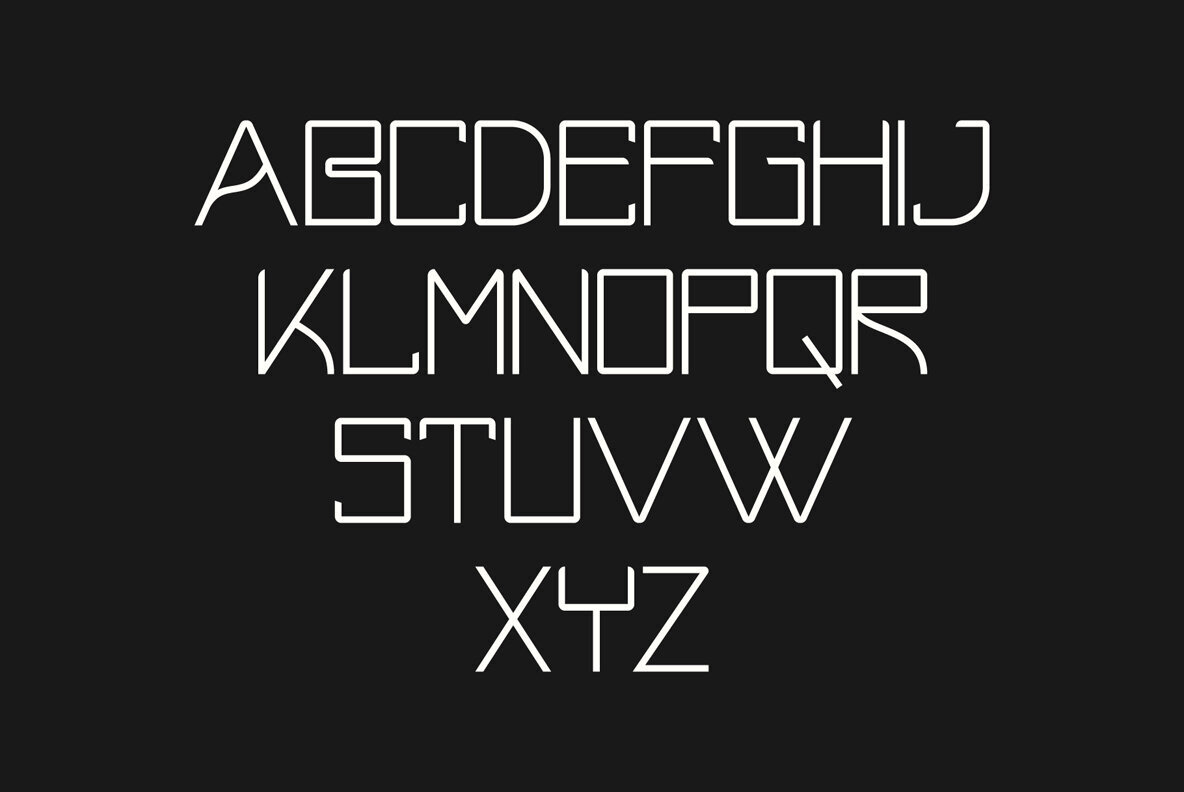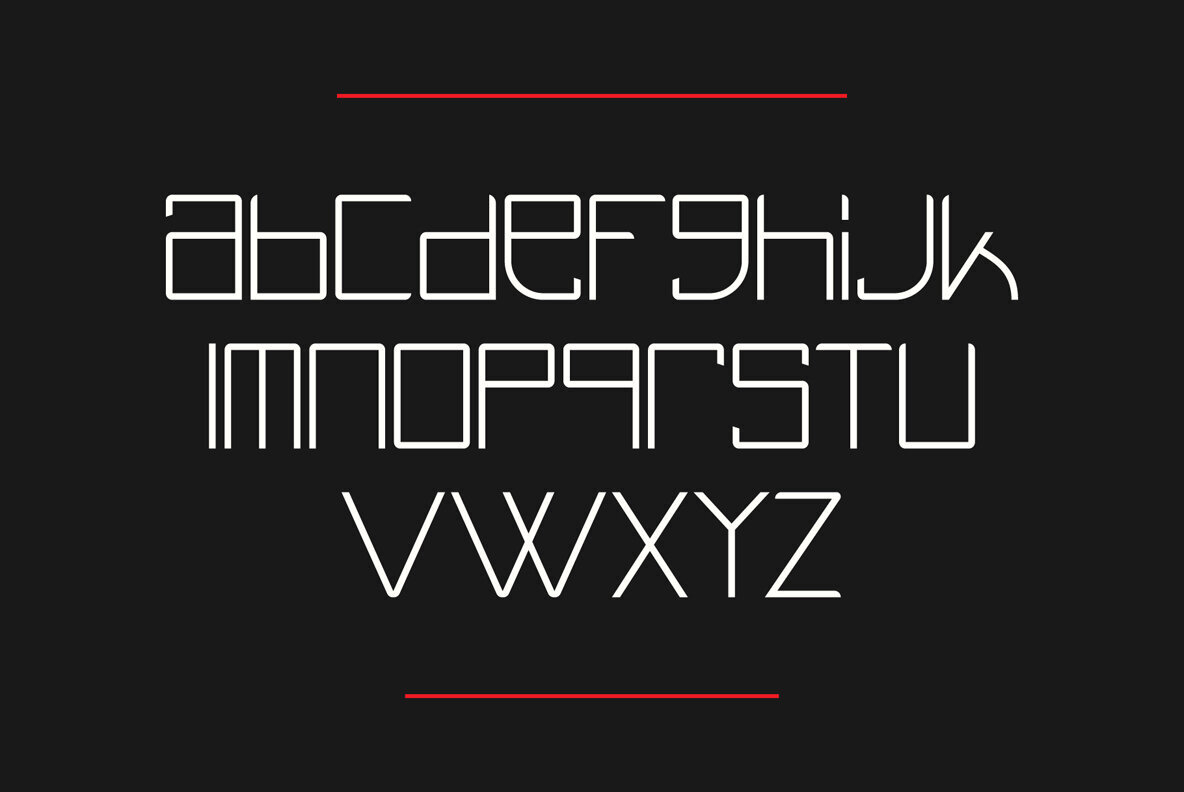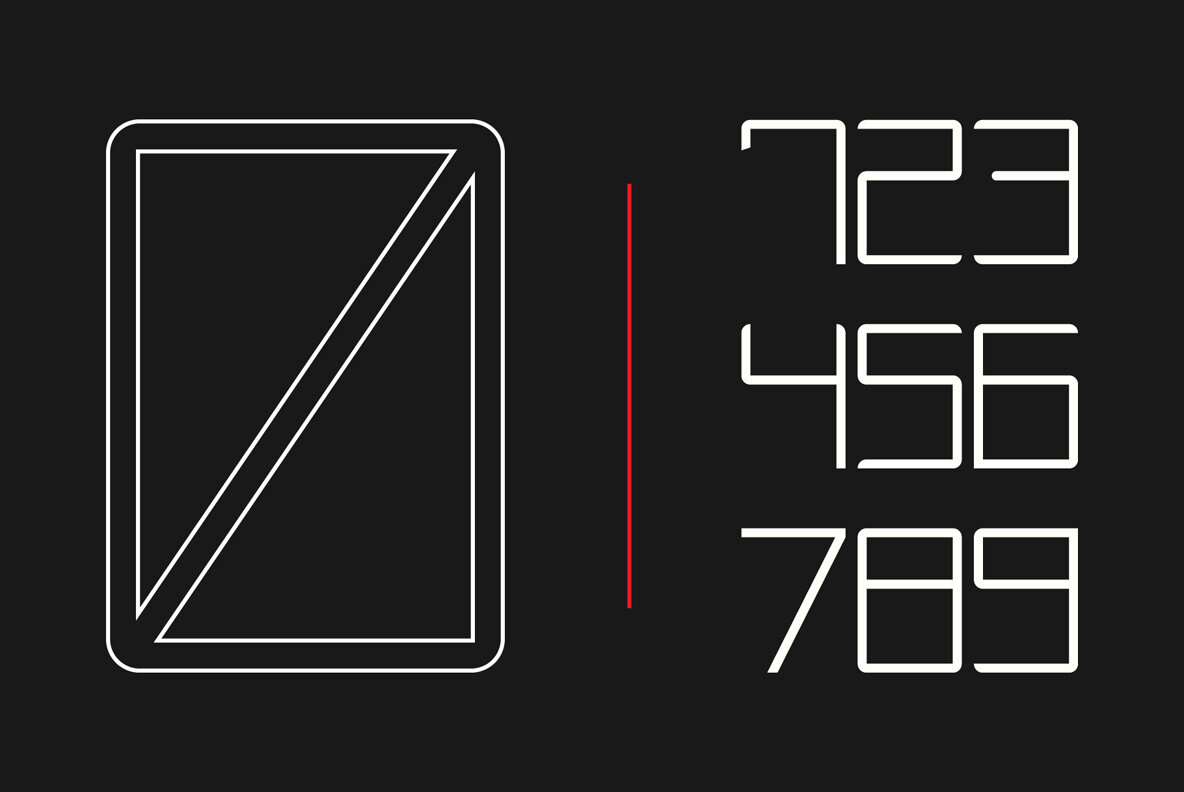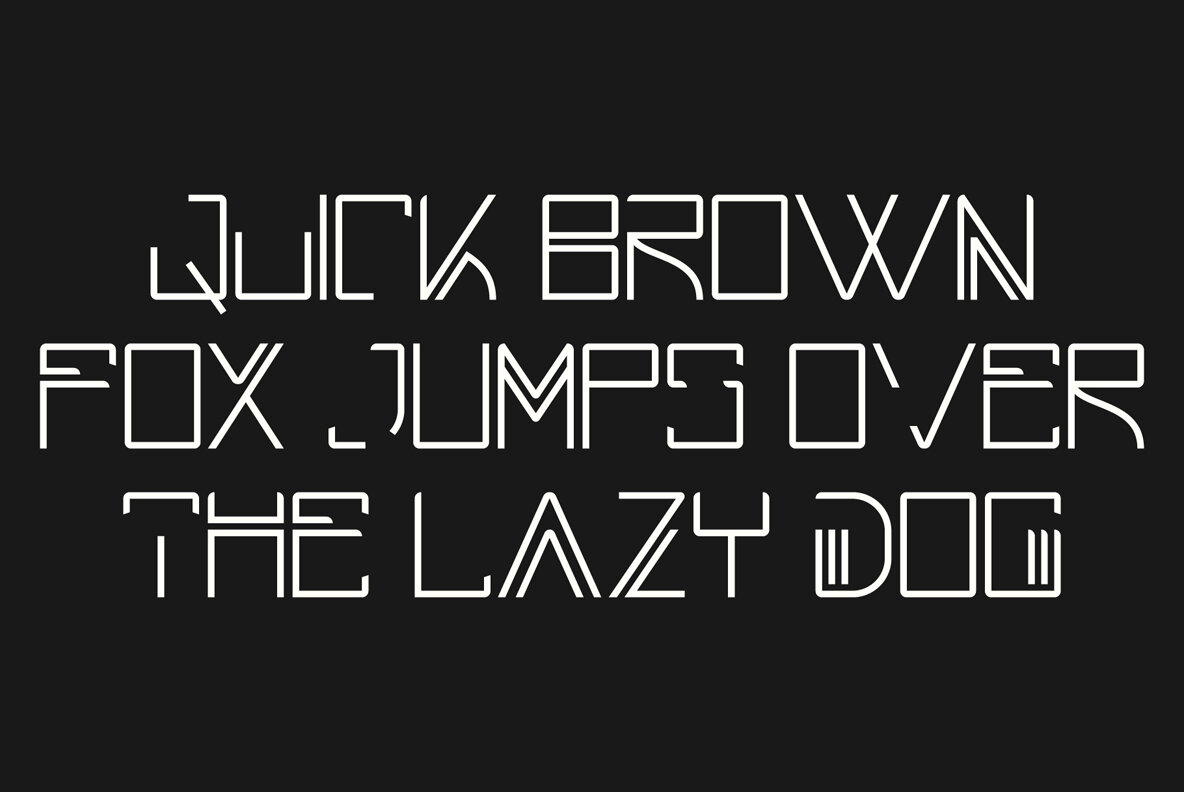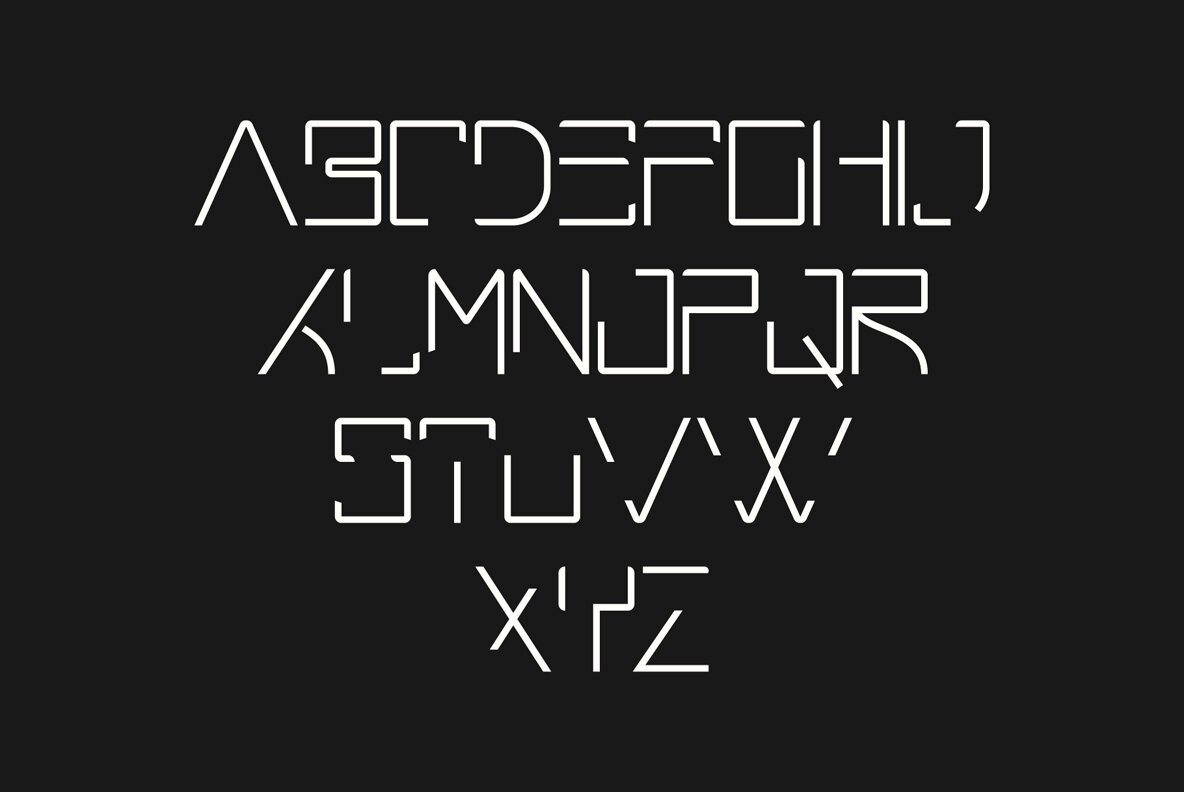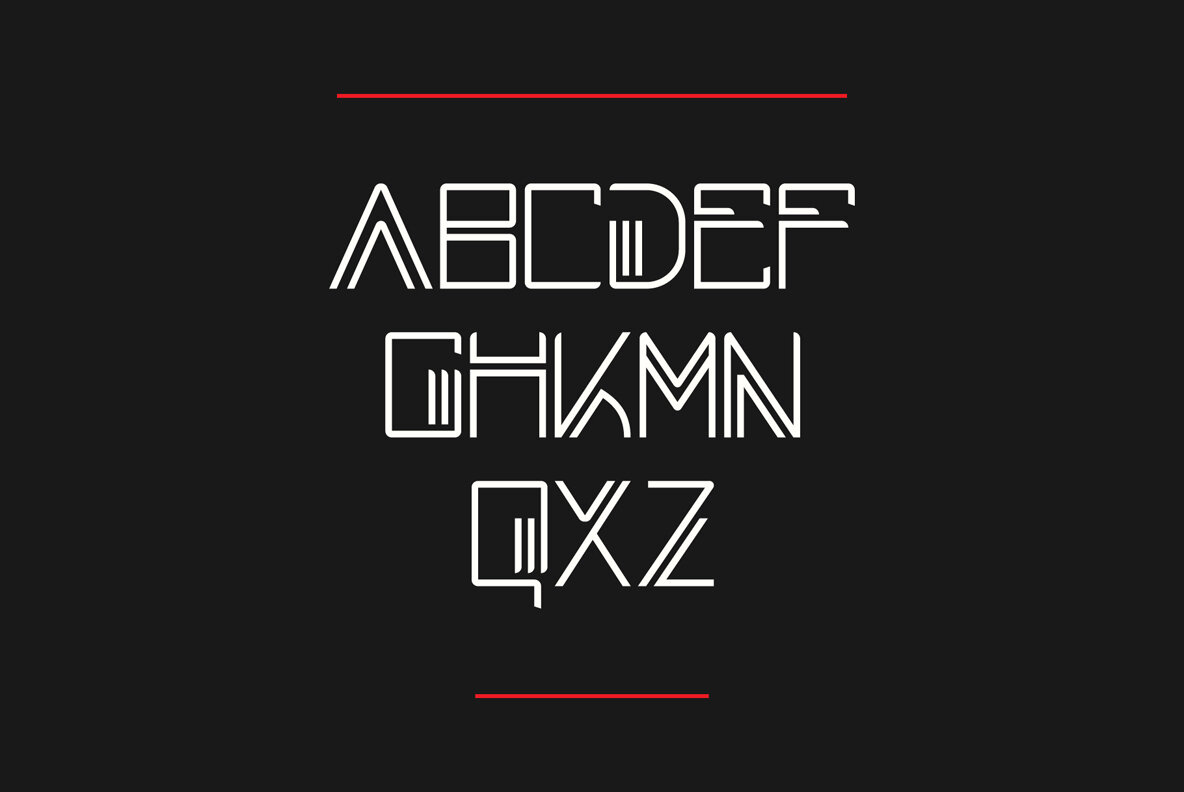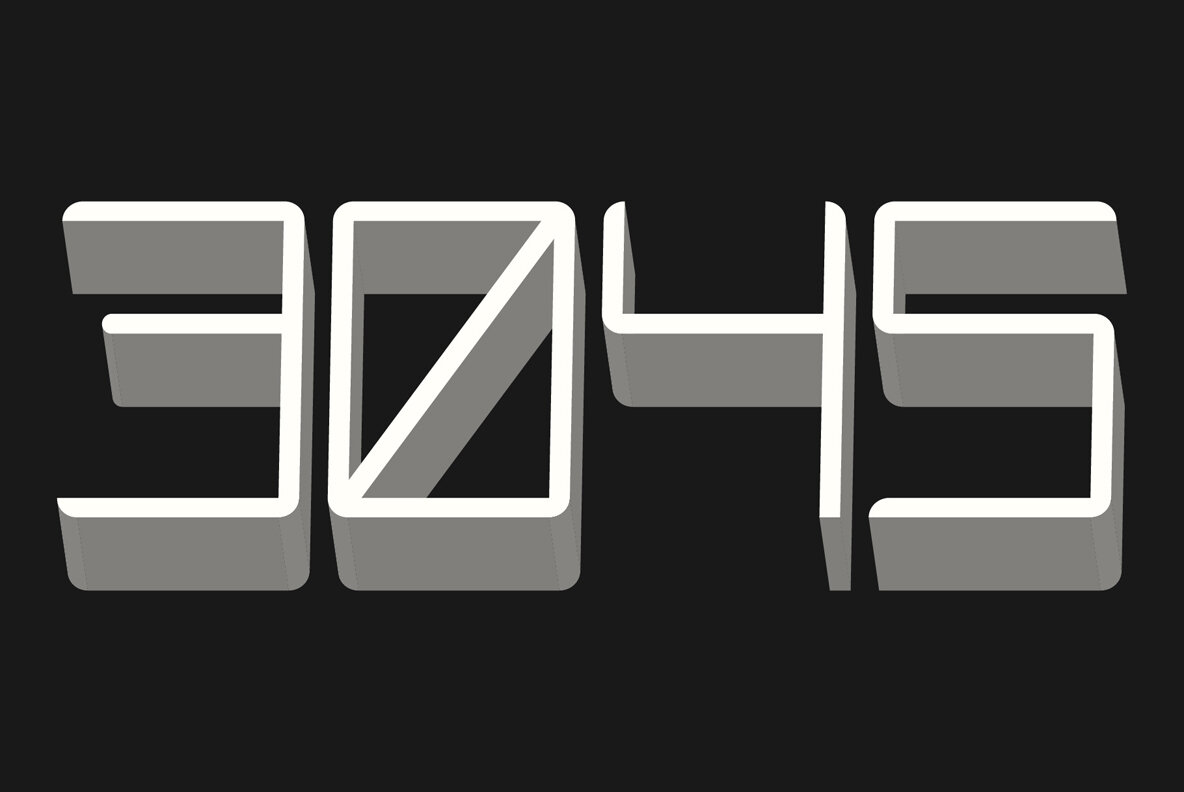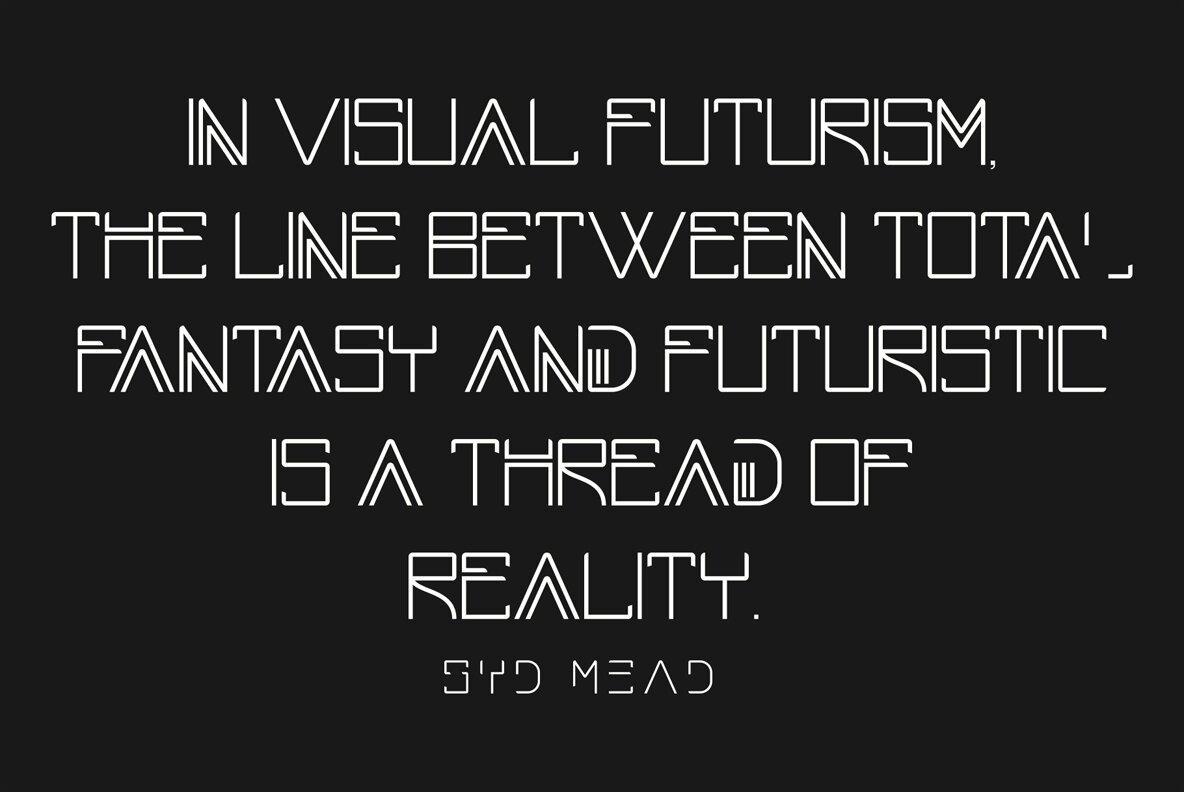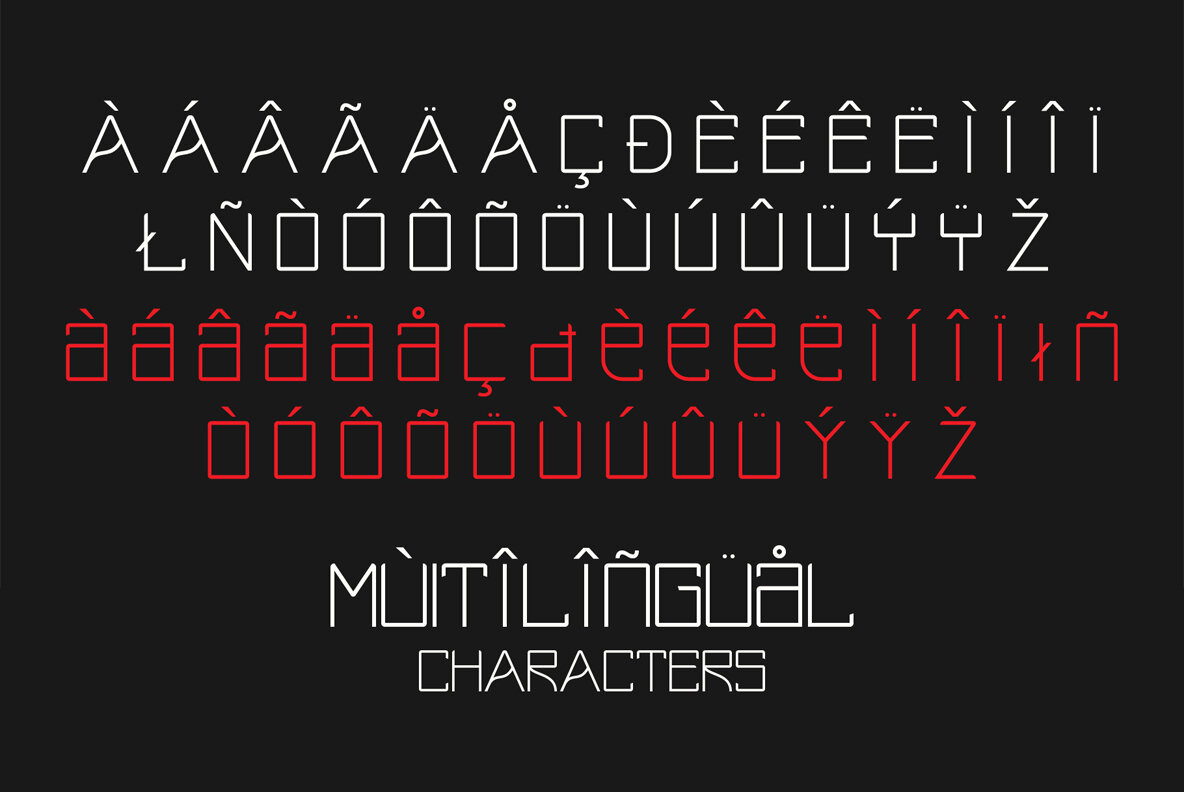
Beckson is a futuristic unique sans serif typeface, which comes with creative alternative letters. Beckson is designed with minimalist distinctive shapes that make it very eye catching. Beckson is a fantastic typeface for modern and futuristic designs, you can use it for a wide range of projects.